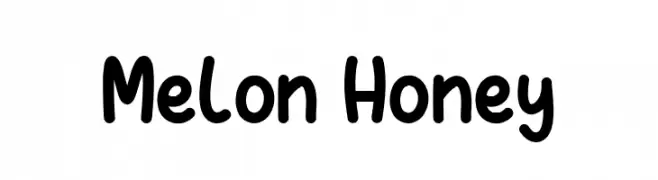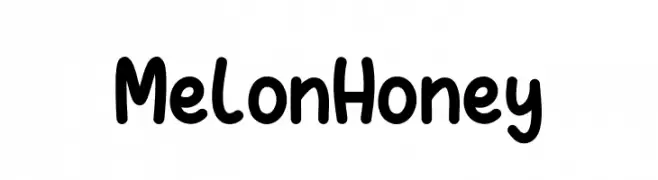
A playful, rounded font with a friendly and informal style.
A bold, rounded font with a playful and friendly style.
A playful, bold, and rounded hand-drawn font with a whimsical style.
A playful, handwritten font with tall, narrow letters and a casual style.
A bold, playful font with geometric shapes and a chunky design.
A playful, bold font with geometric shapes and a quirky style.
A playful, rounded font with smooth curves and consistent stroke width.
A playful, rounded font with smooth, curvy lines and consistent stroke width.
A playful, rounded font with a friendly and approachable style.